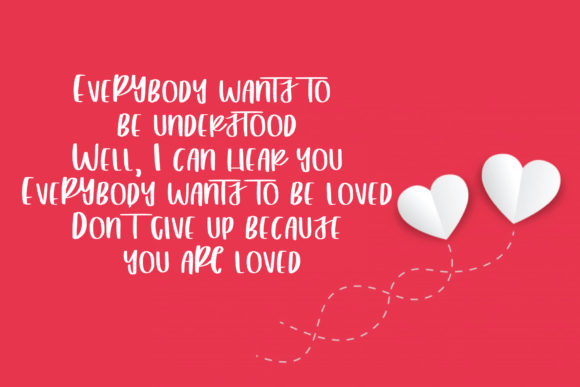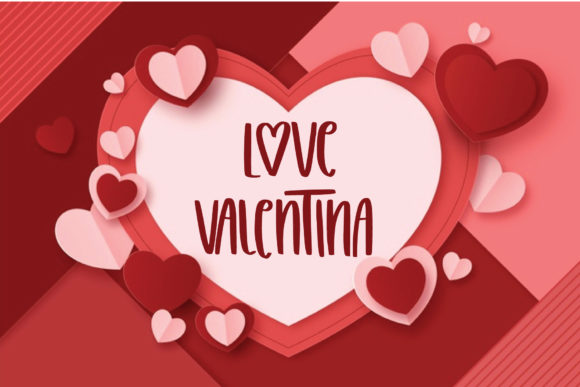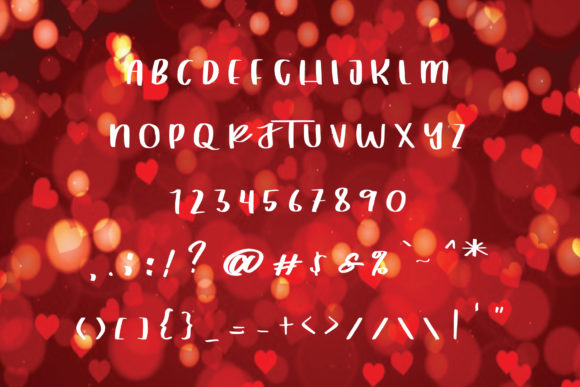
Introduction to Lover Valent Font
There’s nothing quite like the thrill of starting a new creative project, with a blank canvas waiting to be filled with ideas and imagination. As designers, we’ve all been there – staring at a blank page, trying to conjure up the perfect font to bring our vision to life. And that’s exactly where the Lover Valent Font comes in – a jolly and friendly display font that’s sure to put a smile on your face.
With its neat and genuine style, the Lover Valent Font is the perfect design resource for any creative project. Whether you’re working on a free download or a high-quality commercial campaign, this font is sure to effortlessly match your design aesthetic. And the best part? It’s available for free download, complete with a transparent background that makes it easy to work with.
Key Features of Lover Valent Font
- Designed with a modern aesthetic, making it perfect for contemporary design projects.
Honest Review: Lover Valent Font
As a designer, I’m always on the lookout for unique and high-quality fonts to elevate my creative projects. The Lover Valent Font caught my attention, and I decided to give it a try.
What works well: ✨ The Lover Valent Font has a beautiful, elegant design that’s perfect for romantic-themed projects, Valentine’s Day cards, or any other creative endeavor that requires a touch of love and affection. The font is also available for free download, making it an excellent resource for designers on a budget.
The font comes with a transparent background, allowing for seamless integration into any design project. I appreciate the high level of detail and the soft, cursive lines that make this font truly special.
Limitations: ⚠️ While the Lover Valent Font is a great addition to any designer’s toolkit, it’s not ideal for projects that require a bold, edgy look. The font’s delicate design may get lost in busier compositions.
Overall impression: I’m thoroughly impressed with the Lover Valent Font. Its unique design and high quality make it a valuable resource for designers working on romantic-themed projects. With its free download option, it’s an excellent choice for anyone looking to add a touch of love and elegance to their creative work.
- Perfect for romantic-themed projects, Valentine’s Day cards, and other love-inspired designs
- Not ideal for projects that require a bold, edgy look
Lover Valent Font
Tips for Getting the Most Out of Lover Valent Font
Use Lover Valent Font in conjunction with other design elements, such as graphics and images, to create a cohesive and visually appealing design. Experiment with different font sizes and styles to add emphasis and create visual interest.
Lover Valent Font is ideal for a variety of creative projects, including wedding invitations, valentine’s day cards, and romantic social media posts. It’s also a great choice for designers who want to add a touch of elegance and sophistication to their designs.